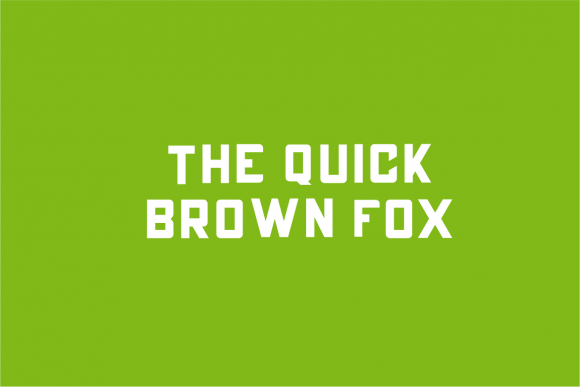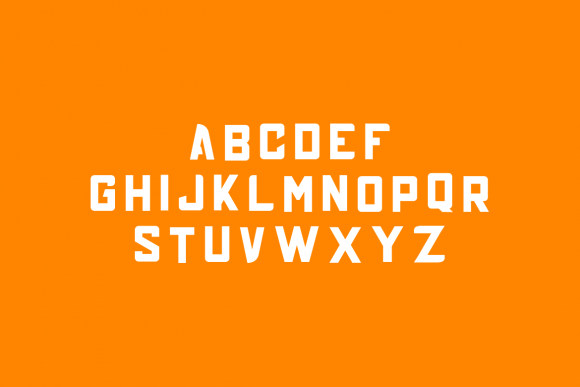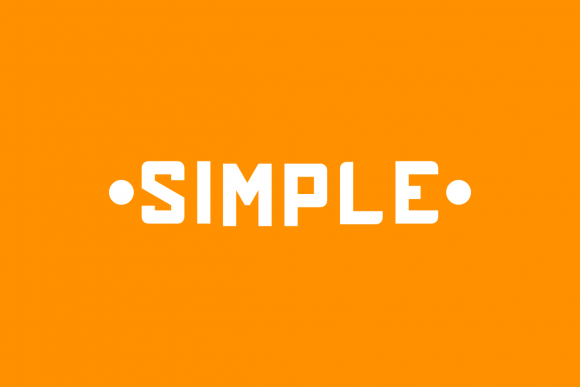
The Designer’s Delight: Alon Kelakon Font
I still remember the frustration of working on a project, hours spent crafting the perfect design, only to be held back by one thing: the font. It was a client request for a bold, eye-catching display font that would make their brand stand out. I scoured the internet, tried countless fonts, but none seemed to fit the bill. That was until I stumbled upon Alon Kelakon. This clean, simple, and bold display font has been a game-changer for my design projects, and I’m excited to share its awesomeness with you! 😊
- ✨ Clean and Simple Design: Alon Kelakon boasts a sleek, uncluttered design that makes it perfect for headlines, titles, and short texts.
- ✅ Bold and Impactful: This font packs a punch, making it ideal for creating eye-catching displays, posters, and advertisements.
- 💡 Versatile: Alon Kelakon can be used for a wide range of projects, from modern digital designs to print materials.
While Alon Kelakon is an excellent font, there are a few things to keep in mind:
- 🤔 Limited use for body text: Due to its bold nature, Alon Kelakon might not be the best choice for lengthy paragraphs or body text.
- ⚠️ Legibility at small sizes: As with many bold fonts, Alon Kelakon may lose legibility when scaled down to very small sizes.
The Designer Inspiration Behind Alon Kelakon
Alon Kelakon was created with the goal of providing a clean, simple, and bold display font that would cater to a wide range of design needs. The designer aimed to craft a font that would be both versatile and impactful, making it a valuable addition to any designer’s font library.
Q: What type of projects is Alon Kelakon best suited for?
A: Alon Kelakon is perfect for projects that require bold, eye-catching text, such as posters, advertisements, headlines, and titles.
Q: Can I use Alon Kelakon for body text?
A: While Alon Kelakon can be used for short paragraphs, it’s not ideal for lengthy body text due to its bold nature.